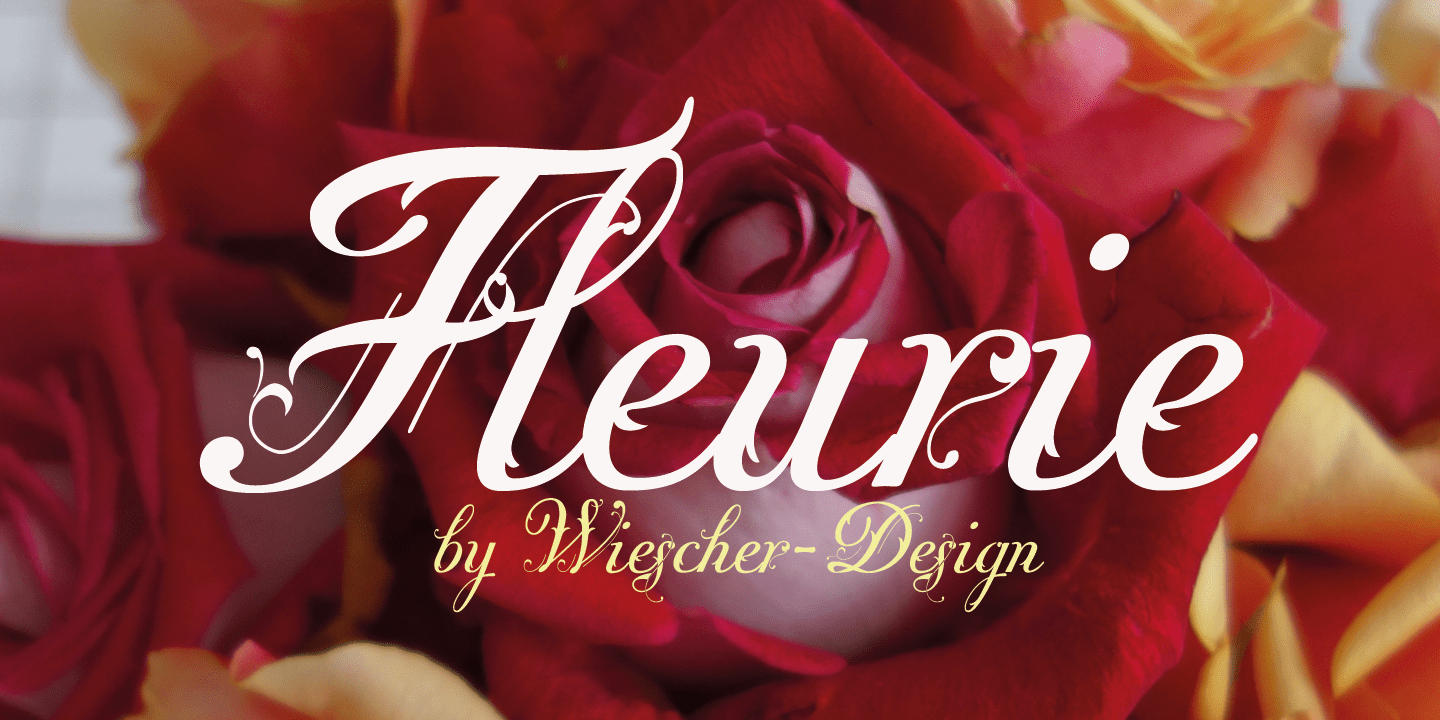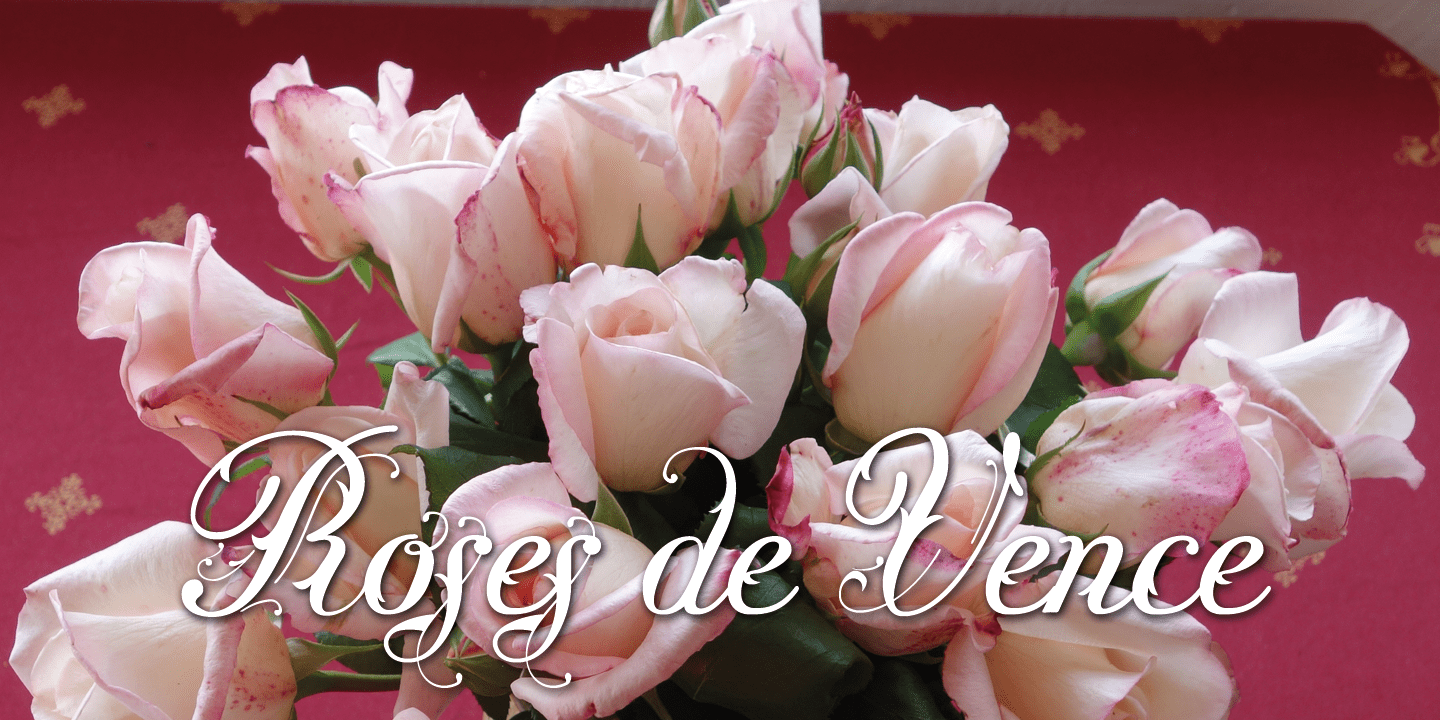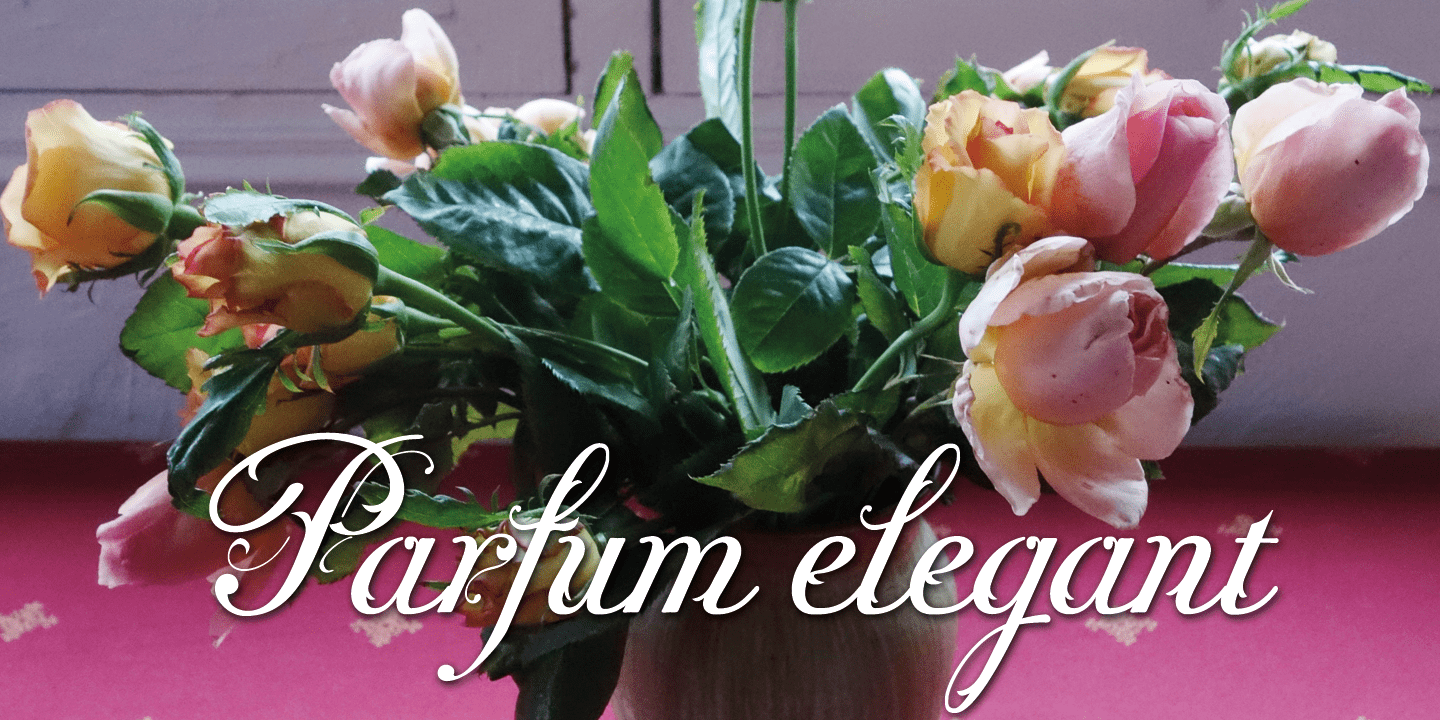
Fleurie
Font Family by Wiescher Design
Buy NowFleurie is a small town in France on the high banks of the Beaujolais area where they make excellent, fruity wine. Fleurie means flowery and that is what that village and this font is all about.
The font is very much a decorated script inspired by the 1920s in gaie Paris. Fleurie comes in a package of two fonts which are intended to be mixed as you please.
The Fleurie font has normally decorated capitals and sparingly decorated lowercase letters. Whereas the Fleurie Plus has heavily decorated capitals and plain lowercase letters that are different to the ones from the other font.